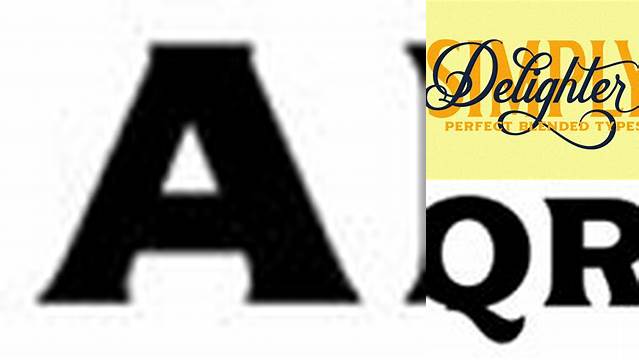
Delighter Script Font Free Download: Bold & Tracked Design
Hey guys, are you on the hunt for a killer script font that's gonna make your designs pop? Look no further! We're diving deep into the world of the Delighter Script font, a fantastic option that's bold, beautifully tracked, and, get this, available for free download. Let's break down everything you need to know about this amazing font and how you can use it to elevate your projects. This font is so cool that it's perfect for a whole bunch of different things. Think invitations, branding, social media graphics, and even your website headers. It's got this awesome, stylish vibe that's both modern and classic, making it super versatile. The best part? It's totally free to download and use, which is awesome for anyone, from professional designers to hobbyists looking to spice things up. Let’s find out why Delighter Script is your next go-to font, what makes it special, and where you can snag it without spending a dime. Get ready to transform your text into something truly eye-catching. Get ready to take your designs to the next level with the Delighter Script font. This font is an incredible addition to any designer's toolkit. It brings a touch of elegance and sophistication to any project. Let's explore how to make the most of this beautiful font.
Why Choose the Delighter Script Font?
First off, what makes the Delighter Script font so special? Well, it's all about the details. This font is not just another pretty face; it's crafted with precision and style. The most notable characteristic is its boldness; it’s designed to grab attention, making your text impossible to ignore. Whether you're creating a logo, a headline, or a quote, this font ensures your message stands out. The bold nature of the font allows for readability, even at smaller sizes, and it makes a powerful statement. Then there's the tracking. Tracking is the spacing between the letters. The Delighter Script font has been carefully tracked, meaning the spacing between characters is adjusted to create a harmonious and visually appealing look. This meticulous attention to detail ensures that your text looks balanced and easy on the eyes, improving overall readability and aesthetics. This can be a huge advantage, especially when used in long-form content. It maintains a consistent appearance throughout your designs. But, it’s more than just the aesthetics; the Delighter Script font brings a certain personality to your work. It's the perfect mix of elegance and playfulness, giving your designs a unique and memorable feel. It's the kind of font that adds a touch of personality and makes your designs memorable. And finally, the most important thing is that it's a script font, which provides that handwritten feel. This makes the design feel more personal and unique compared to other basic fonts. Imagine using it for wedding invitations, creating a sense of intimacy, or branding that conveys a sense of handcrafted care. Its versatility is impressive, making it a valuable asset for any designer looking to add flair to their projects. Whether you're working on personal projects or client work, the Delighter Script font will make sure your designs look polished and professional. The bold design combined with its beautiful style is simply perfect.
Key Features of the Delighter Script Font
Let's dive deeper into what makes the Delighter Script font so awesome. Here are some key features that make it a must-have for any designer: the first feature is its boldness. This font makes a bold statement. Perfect for headlines, titles, and any text you want to highlight. It captures attention instantly and ensures your message is clearly conveyed. It has that classic style, but with a modern twist. This makes it incredibly versatile for various design projects. Secondly, there is its tracking, a crucial factor in its readability and visual appeal. Each letter is precisely spaced for a balanced look, and the tracking has been designed to provide an incredibly smooth reading experience, making the text easier on the eyes. This means that the letters are spaced to give a balanced look. Also, the font has the handwritten feel. This adds a human touch to your designs, making them feel more personal and relatable. It's ideal for projects where you want to convey warmth, sincerity, or a touch of elegance. It has a huge appeal for personalizing branding materials or adding a unique flair to creative projects. Think about it, use it on wedding invitations, creating a feeling of intimacy, or branding that conveys a sense of handcrafted care. It also has great legibility. While it has a stylish script design, it is designed to remain readable, which is crucial for any text element. Whether used for headlines or body text, the font maintains clarity, and that is very useful for designers. Lastly, it has a wide range of applications, making it a very versatile font. The Delighter Script font can be used in many projects. Perfect for logos, invitations, posters, social media graphics, and more. Its adaptability makes it an essential tool for anyone looking to make an impact. These features combine to make the Delighter Script font a remarkable choice. Its blend of boldness, tracking, and handcrafted feel delivers a distinct look that sets your designs apart. Its versatility allows designers to add flair, personality, and clarity to their designs. The possibilities are endless. This font adds a special touch to any project. From adding that little extra to creating that memorable design, the Delighter Script font offers a seamless and unforgettable design experience.
How to Use the Delighter Script Font in Your Designs
So, you've got the Delighter Script font downloaded, and now you're wondering how to use it in your designs? Here are some tips and ideas to get you started. The most important thing is to be creative. The Delighter Script font is all about making your text look amazing, so experiment and have fun! First off, consider using the font for headlines. It's perfect for making a bold statement. Whether it's on a website, social media post, or print material, use it to grab the reader's attention. Then, think about logos and branding. It's a great option for logos and branding, especially for businesses that want a touch of elegance or a handcrafted feel. It will make your brand more memorable. Also, you can use it for invitations and stationery. It's the perfect choice for invitations, greeting cards, and other stationery items where you want to create a personal and stylish vibe. It can be an ideal choice, especially for weddings, birthdays, or any special event. You can create gorgeous designs in a matter of minutes with this font. You can use it for social media graphics. It's an excellent option for social media graphics. You can use it to create eye-catching posts, quotes, and other engaging content. Try using the font to create quotes or short messages for social media posts. It can bring charm and personality to all your designs. Don't be afraid to experiment with different sizes and colors to find what works best. Also, you can combine it with other fonts. Pair the Delighter Script font with a simple sans-serif font for body text. Using different fonts can add more depth and visual interest to your designs. This helps in creating contrast. Experiment with combinations to see what fits your style. Make sure to always maintain readability. Ensure that your text is easy to read. Avoid using the font in very small sizes or in places where readability is crucial. Be mindful of the background color and the overall design to make sure your text is clear. Also, keep in mind that the bold and tracked letters stand out and can be used to create a unique look. By doing this, your designs will be eye-catching. You will be able to create a great design.
Tips for Effective Font Usage
Alright, let's look at some tips to use the Delighter Script font effectively. First up, contrast is your friend. Always use a contrasting color. This will help make your text stand out. Test different combinations until you find the perfect balance. A little bit of contrast goes a long way in making your text look great. Secondly, use it in moderation. Overusing the font can make your design look cluttered and overwhelming. Use it strategically for headlines, titles, or key text elements. Remember, less is more. Balance the script font with other fonts to create a balanced design. Thirdly, adjust the kerning and tracking. Experimenting with these settings can make your text more readable and visually appealing. Fine-tuning the spacing between letters can have a big impact on the overall look of your design. And always consider the context. Think about the message you want to convey and the audience you're targeting. The Delighter Script font is great for certain projects, but it might not be the best choice for others. Fourth, test it on different backgrounds. Before you finalize your design, make sure to test it on different backgrounds to ensure the text is readable and the overall design looks great. Be sure to test the different colors and sizes. Lastly, it's all about the details. These can enhance your design and make your text look amazing. By following these tips, you can make the most of the Delighter Script font. You can create fantastic designs that will grab attention and make a lasting impression. It will help you create stunning designs and elevate your projects. It will also help you achieve amazing results. The font is designed for both casual and professional use.
Conclusion: Unleash Your Creativity with Delighter Script
In conclusion, the Delighter Script font is an excellent choice for any designer who wants to add a touch of elegance, boldness, and personality to their projects. From its bold design and carefully tracked letters to its free availability, it's a valuable asset for a wide range of creative endeavors. Whether you're working on logos, invitations, social media graphics, or website headers, this font has what it takes to make your designs stand out. It's perfect for anyone looking to add a touch of elegance and personality to their projects. With its distinct features, this font is the perfect choice for a whole bunch of projects. The bold design combined with its handwritten feel makes this font unique and easy to recognize. So, what are you waiting for? Go ahead and download the Delighter Script font, and start creating something amazing today! Remember to follow our guide, and get ready to create eye-catching designs that will impress your audience. With the Delighter Script font, your designs will stand out, and your message will be clear. You'll have the perfect tool to bring your creative visions to life. So, go out there, have fun, and let your creativity run wild! This font is a fantastic addition to any designer's toolkit. This can help you create designs that will impress your audience. The Delighter Script font will help you create something unique and special.